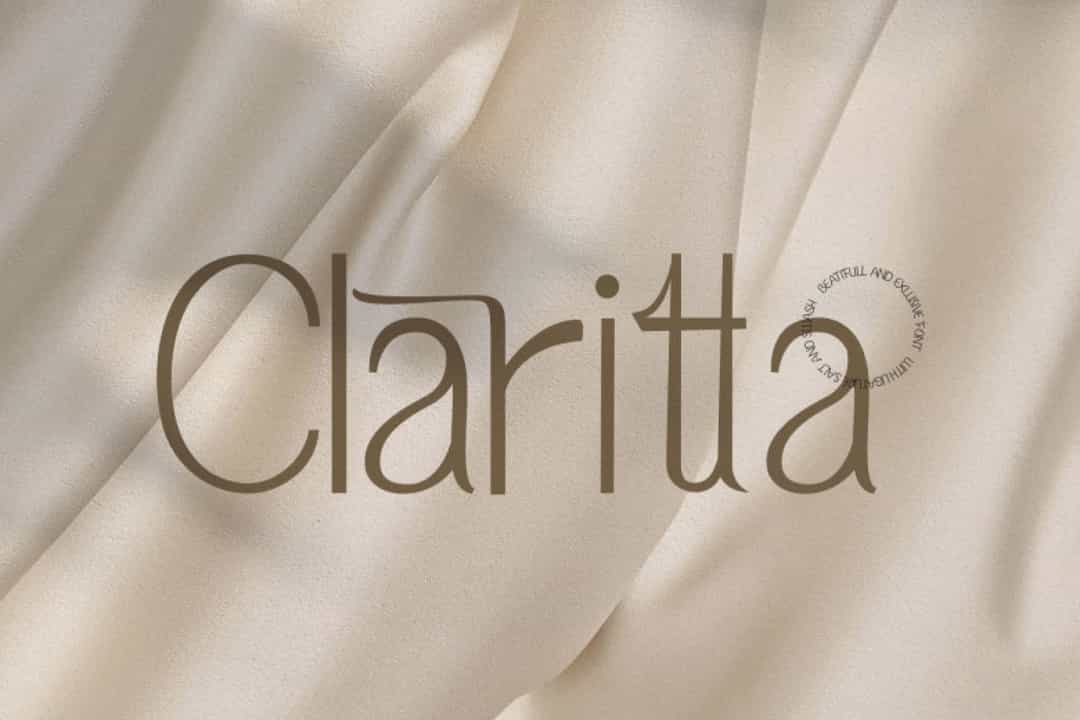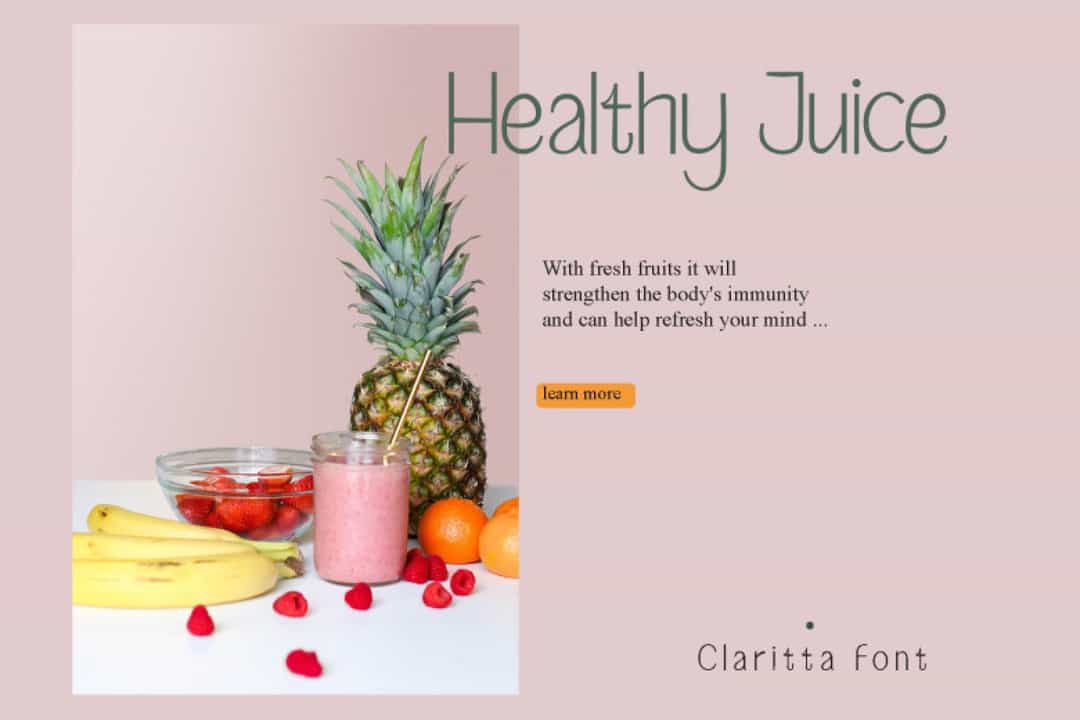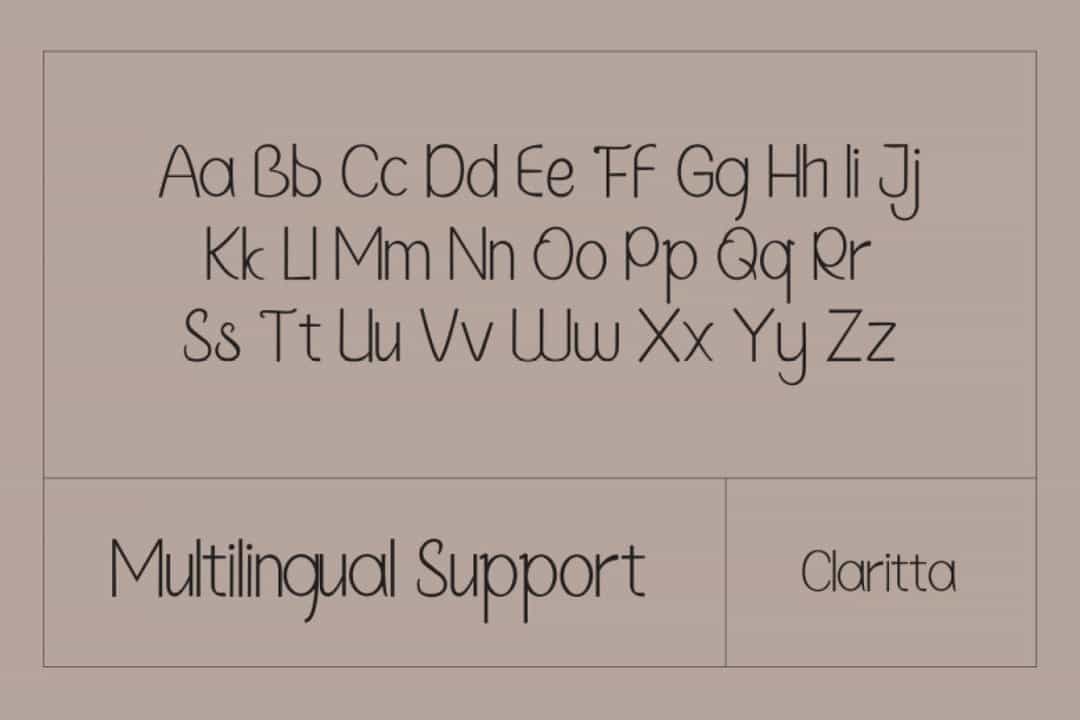
Discover Claritta Font, part of the Sans Serif collection—a versatile and unique font perfect for adding a personal touch to your projects. Download it for free and enjoy crafting designs with style, from invitations to social media posts. This font is available exclusively for personal use, giving you the freedom to create without limits. Unlock your creativity with Claritta Font today!
Claritta is a light vintage-styled sans serif font created by die.miftah21 that embodies sleek curves. Ideal for editorial and fashion designs. Encoded with PUA so that users may quickly access every glyph and swash!